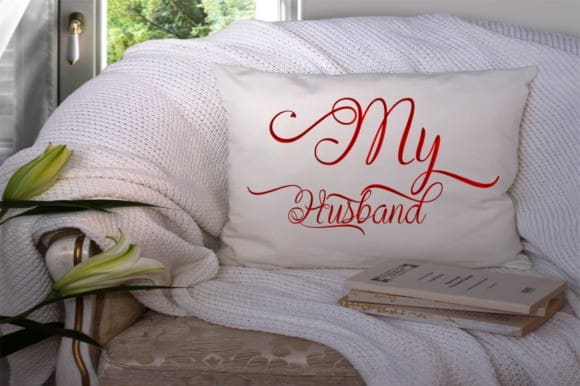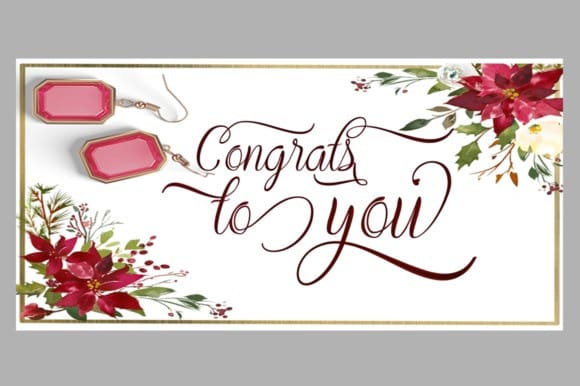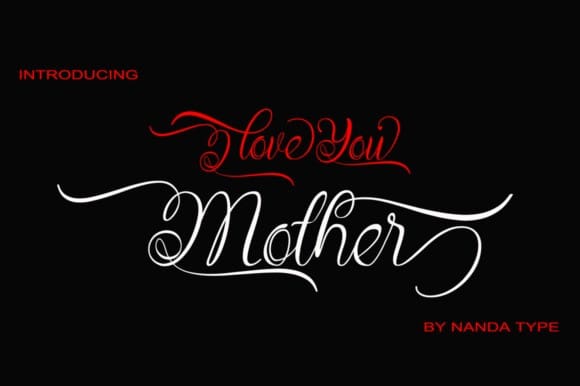
Mother Script Typeface
Mother Script Typeface, is an elegant and vintage styled script font. This font is PUA encoded which means you can access all of the glyphs and swashes with ease!
Use this font for your designs and explore its endless possibilities.